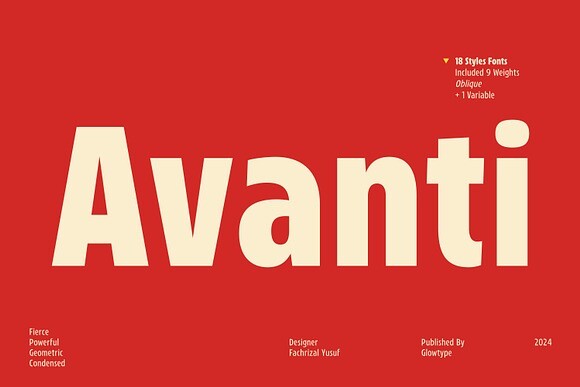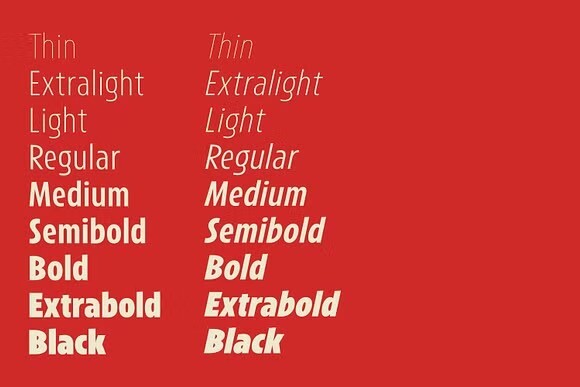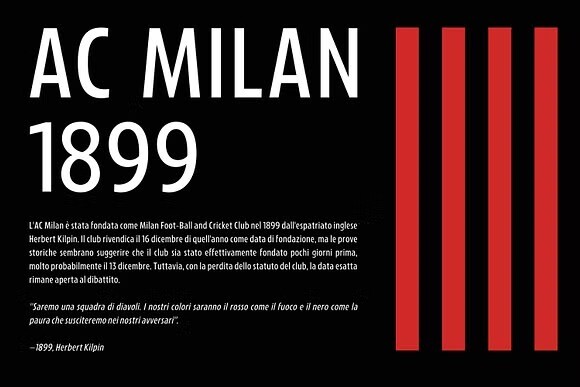
Avanti Font
Avanti Font, inspired by the typography on various subways around the world. Combining a modern, bold and bold impression. Introducing Avanti a modern condensed sans, an anti-mainstream condensed font. Avanti is Italian for forward, created to give a masculine and bold impression to all aspects of your branding.
Whether you’re creating marketing materials, designing a website, logo design, packaging, ads, clothing, merch, etc, Avanti is the perfect choice.